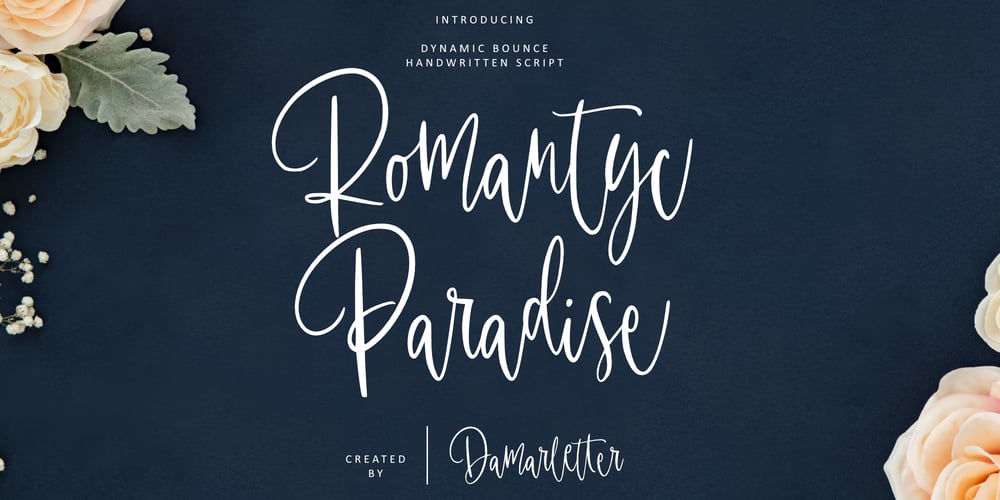
Romantyc Paradise
Romantyc Paradise font
Romantyc Paradise Font Family was designed by Ardian Nuvianto and published by Ardian Nuvianto. Romantyc Paradise contains 1 styles and family package options. Romantyc Paradise is consisting of a fashionable signature-style script, that looks elegant and classy.This font was created to look as close to a natural handwritten as possible.It is PUA encoded which means you can access all of the glyphs and swashes with ease!